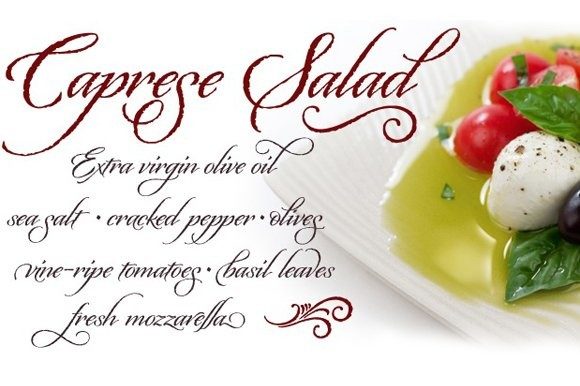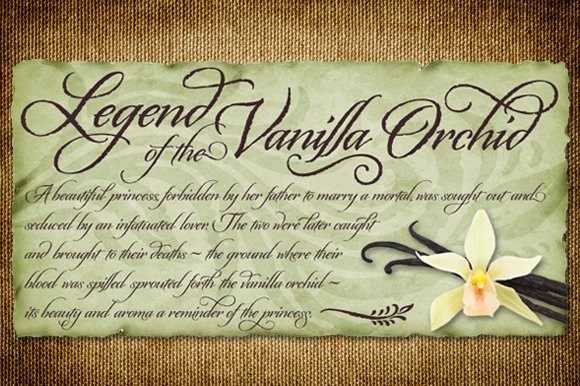
Origins Font
db-ku.com - Script & Handwritten -- Based on letters hand-drawn with a crow quill on parchment paper, Origins combines calligraphic grace and antique ambiance. Its tight, energetic angularity can be complemented with swooping swash capitals, alternate ascending and descending letterforms, and graceful ending characters. Origins sings in settings related to food and wine, celebrations, travel, and history.